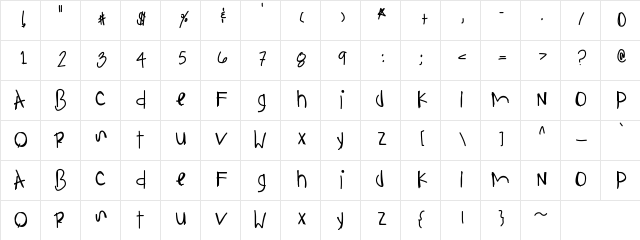
Complete AnythingIsPossible Medium glyph index. Displaying only characters natively supported by AnythingIsPossible Medium font.
AnythingIsPossible is a composed and adaptable typeface that performs quietly and consistently across a wide range of design contexts. Its slender proportions lend an understated elegance to any composition.
Pro Tip: Use AnythingIsPossible in both headline and body roles to test its range before committing to a single application.